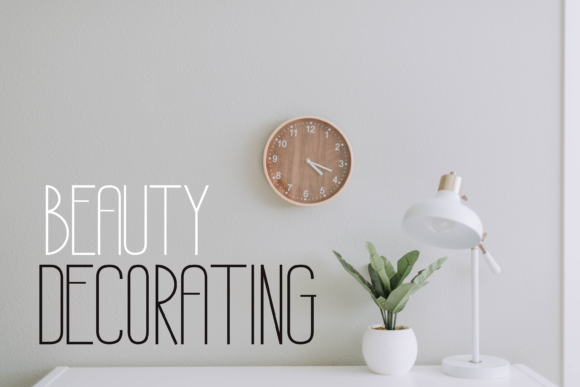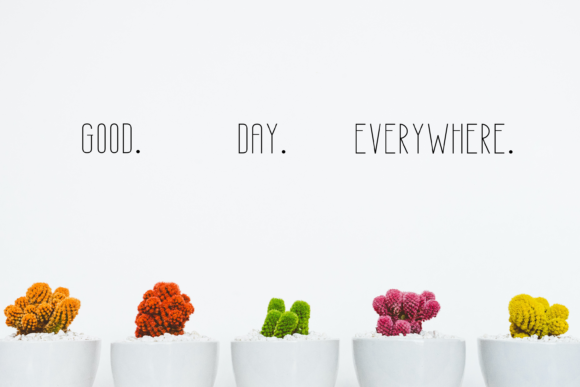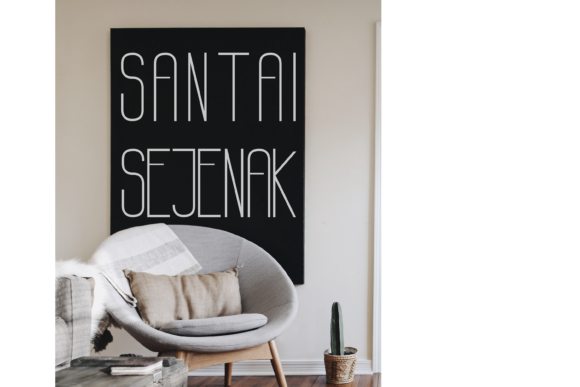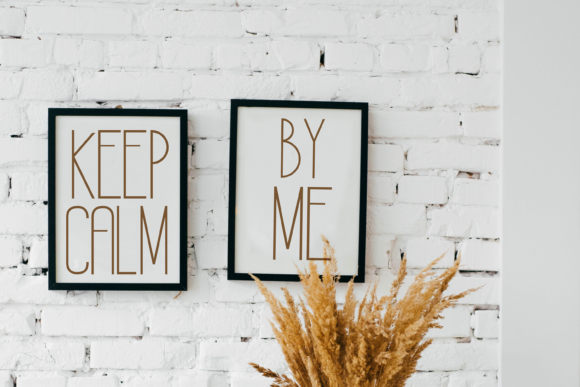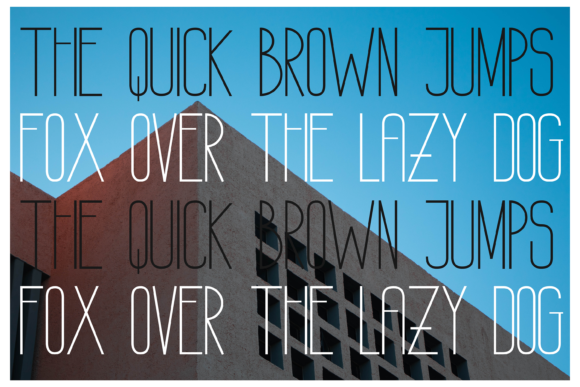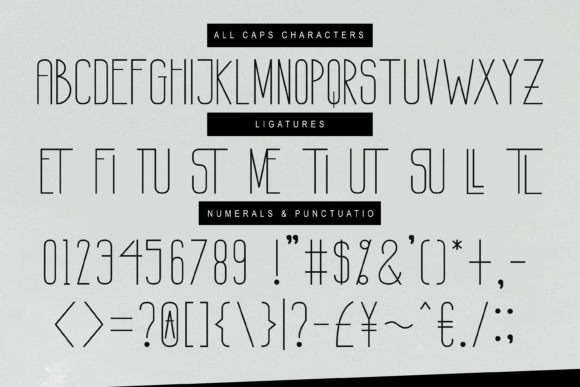
Introduction to Green Home Font
Remember that moment when you’re working on a creative project and you just can’t seem to find the right font to complete the look? You scroll through endless options, trying to find the perfect fit for your design. But what if I told you that there’s a font that’s been hiding in plain sight, just waiting to elevate your photography and creative works?
Enter the Green Home Font, a stylish and thin sans serif font that’s perfect for designers looking to add a touch of sophistication to their projects. With its sleek design and high-quality aesthetic, this font is a valuable resource for anyone working on a creative project.
- High-quality design: The Green Home Font is designed to provide a unique and elegant look for your creative project, making it perfect for various design applications.
- Perfect design resource: The Green Home Font is an excellent design resource for designers who want to add a touch of elegance and sophistication to their work, making it perfect for creative projects, such as branding, packaging, and web design.
Honest Review: Green Home Font
I recently came across the Green Home Font, and I must say, it’s a great addition to any creative project. The font is a high-quality, free download that’s perfect for designers looking to add a touch of nature to their designs.
What works well is the transparent background, which makes it easy to use on a variety of backgrounds. The font is also highly customizable, allowing designers to adjust the size, color, and style to fit their needs.
- ✨ High-quality font with a natural, earthy feel
- ✨ Transparent background for easy use on any background
- ✨ Highly customizable with various size, color, and style options
- ⚠️ Limited number of font styles available
Overall, I’m impressed with the Green Home Font. It’s a great resource for designers looking to add a touch of nature to their designs. While it may have some limitations, it’s a valuable addition to any design toolkit.
Tips for Getting the Most Out of Green Home Font
To get the most out of Green Home Font, experiment with different font sizes, colors, and styles. You can also use it in combination with other design resources to create a unique and eye-catching design. Remember to save your project with a high-quality image format to ensure the best results.
Green Home Font is perfect for various creative projects, including home decor, gardening, and eco-friendly designs. You can use it to create flyers, posters, or social media graphics that promote sustainable living and green initiatives.